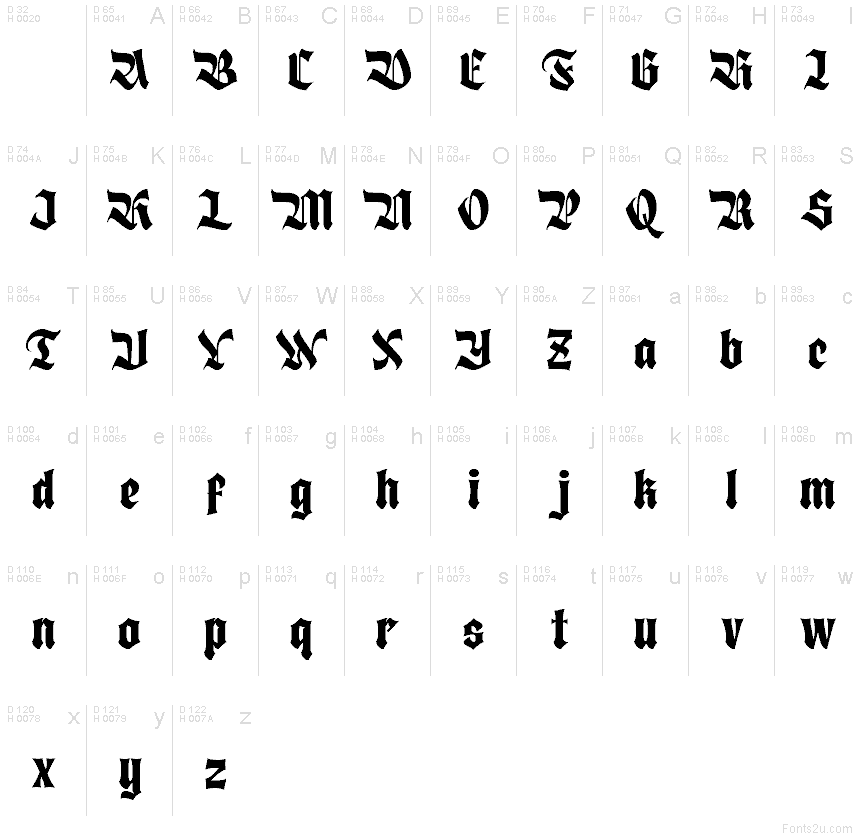
Bladge Regular
Bladge font by Blankids is a free modern gothic typeface. Its razor-edged strokes and blocky, ink‑black mass give each word a carved, ceremonial weight, while the tight rhythm keeps it surprisingly readable at a glance. Those chiseled joins and hooked terminals feel like metal cut by hand-bold, moody, and a little dangerous.
Using Bladge, headlines hit hard without getting messy, which shines on metal posters, craft beer labels, tattoo branding, medieval or fantasy game titles, biker club merch, and bar signage. This free font thrives big and bold; keep copy short and let the shapes breathe. Pair it with a neutral sans serif for body text to keep layouts clear and contemporary.